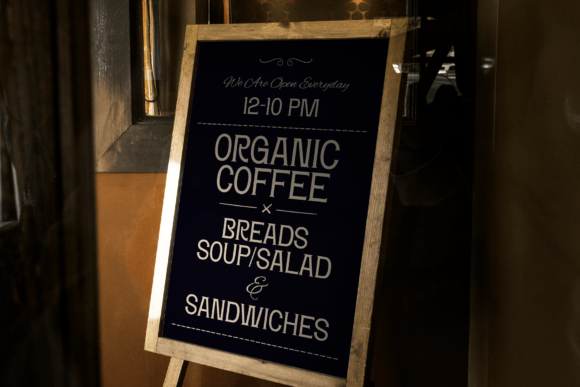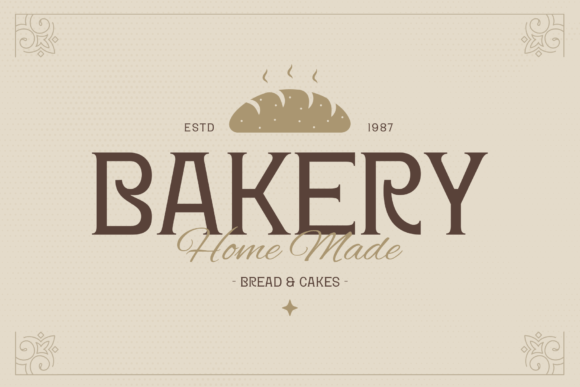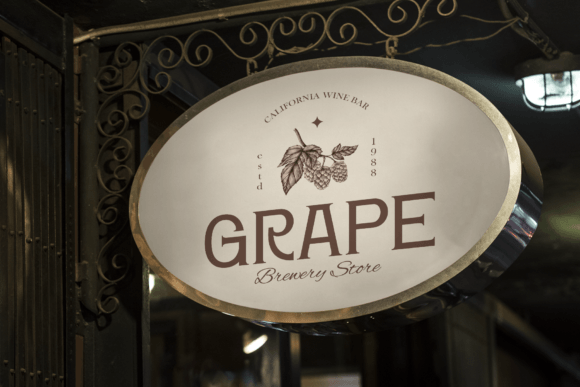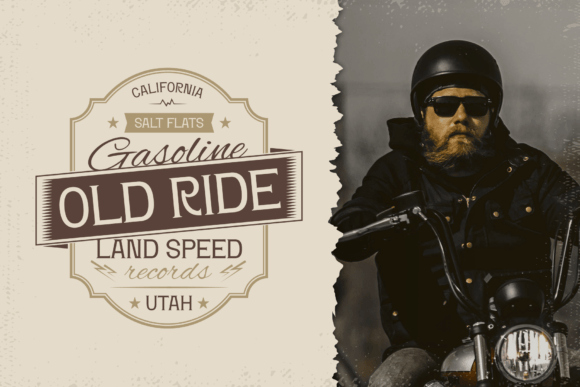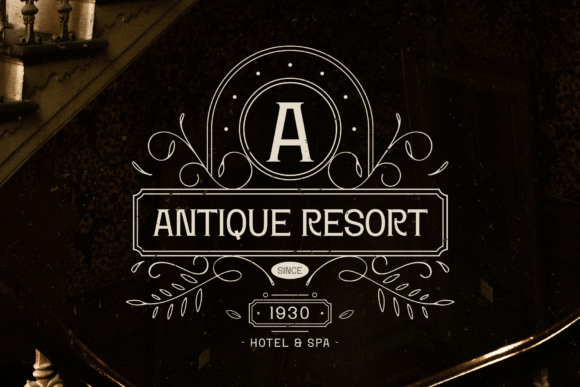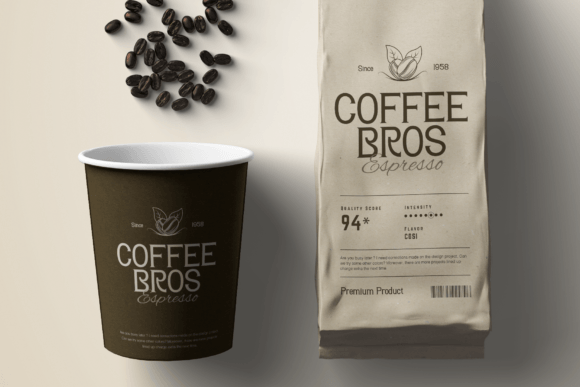
Introduction to Robous Font
Introducing ROBOUS – a Classy Retro Display Font that marries simplicity with a retro appeal, accentuated by a clever twist that piques interest.
ROBOUS is perfect for a myriad of display purposes, whether it’s transforming a basic t-shirt into a statement piece, adding charm to packaging designs, enhancing signages and posters with a dash of nostalgia, or infusing logos and labels with a distinct vintage character This versatile font is equally effective in creating compelling headlines or designing engaging covers.